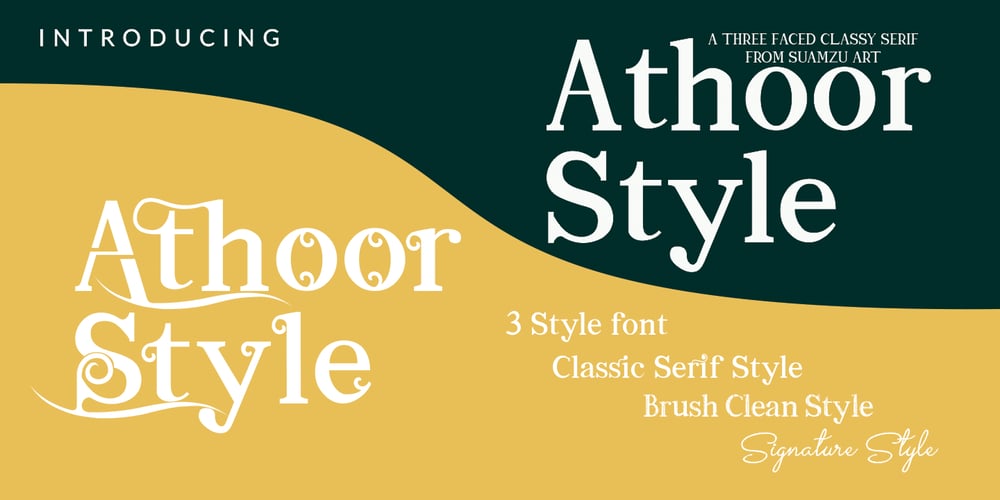
Athoor Style Font Family was designed by Amrullah Medan, Amrullah and published by Suamzu Art. Athoor Style contains 3 styles and family package options. Athoor Style fonts are serif fonts that combine signature styles and retro textures, Athoor style fonts are very easy to use in a variety of your design work such as posters, company logos, company brochures, marketing on websites, magazines, book covers, business cards, clothes, resume and all design work, come up with your best ideas for coming up with the best style of this font.Athoor Style fonts comes with3 kinds of fontsligatureswashalternate fonts.enjoy the best design work.